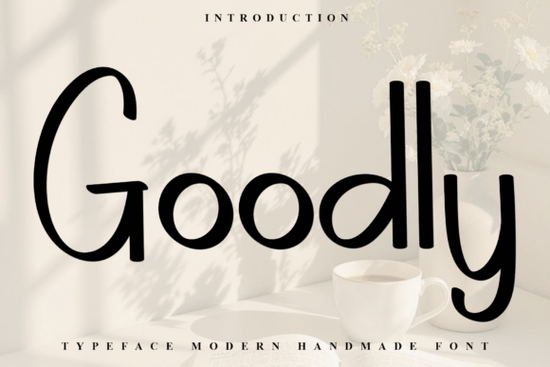
Looking for a typeface that brings warmth and festive charm to your holiday projects? Goodly Font is a decorative typeface designed with the holiday season in mind. It features whimsical details and cheerful character shapes that work beautifully on greeting cards, gift tags, and seasonal designs. If you create print-on-demand products or sell holiday crafts, this font can help your words feel more inviting and personal.
What Does Goodly Font Look Like?
Goodly has a merry, festive personality baked into every letter. The characters include playful curves and decorative touches that give your text a handcrafted, nostalgic feeling. It doesn't try to be minimal or modern instead, it leans fully into that cozy holiday aesthetic many people love.
Think of the kind of typeface you'd see on a vintage Christmas card or a hand-lettered gift tag. That's the space Goodly lives in. The letters feel warm without being overly ornate, which makes them easy to read even at smaller sizes.
What Can You Use Goodly Font For?
This font fits a wide range of creative projects. Here are some practical ways designers and crafters put it to work:
- Greeting cards Christmas, New Year's, and winter holiday cards with a personal touch
- Gift tags and labels Adds charm to packaging during the holiday rush
- Social media graphics Seasonal posts, promotions, and event announcements
- Print-on-demand products Mugs, tote bags, ornaments, and apparel with holiday quotes
- Scrapbooking and journaling Titles and headings for memory pages
- Website banners and email headers Seasonal sales pages and newsletters
- Party invitations Holiday gatherings, office parties, and family get-togethers
Small businesses can also use Goodly for their holiday marketing materials. Whether you're designing a flyer for a local event or creating stickers to sell online, the festive style helps your designs feel seasonal and intentional.
What Fonts Pair Well With Goodly?
Since Goodly is a decorative display font, it pairs best with something cleaner for body text or supporting copy. Here are a couple of options worth considering:
When pairing fonts, keep this rule in mind: contrast is your friend. Pair a detailed, decorative font like Goodly with something straightforward and legible. Your headings can be playful while your body text stays clean and easy to read.
Is Goodly Font Right for Your Project?
If you're working on anything with a holiday, winter, or festive theme, Goodly is worth a look. It captures a specific mood cheerful, warm, and a little whimsical that's hard to get from a standard font. It's not designed for long paragraphs or technical documents. It's meant for headlines, short phrases, and display text where personality matters most.